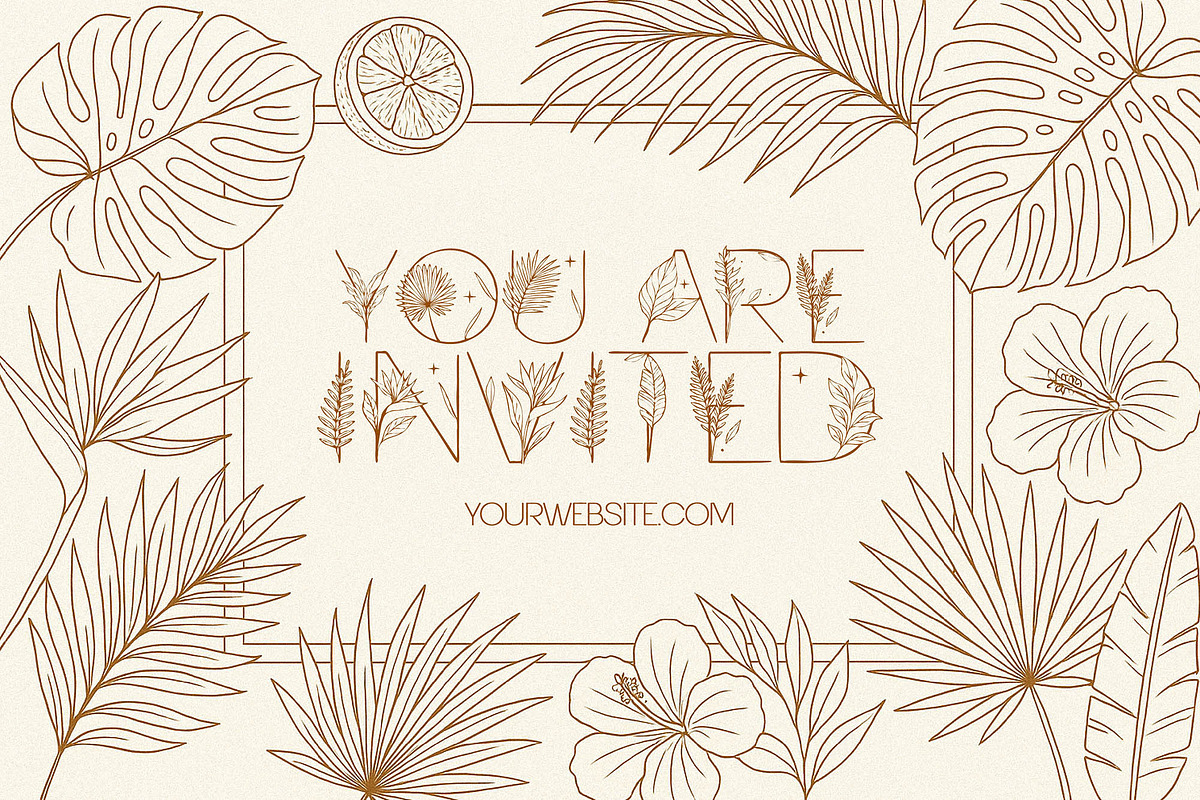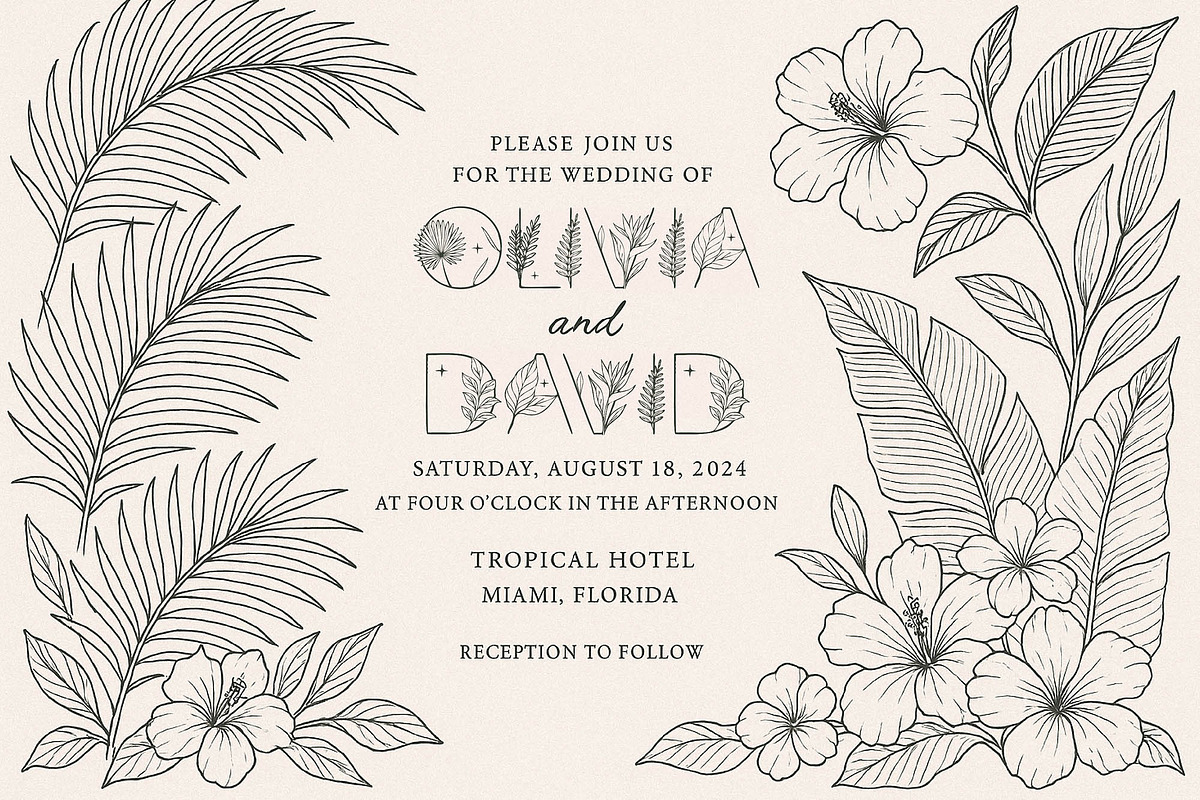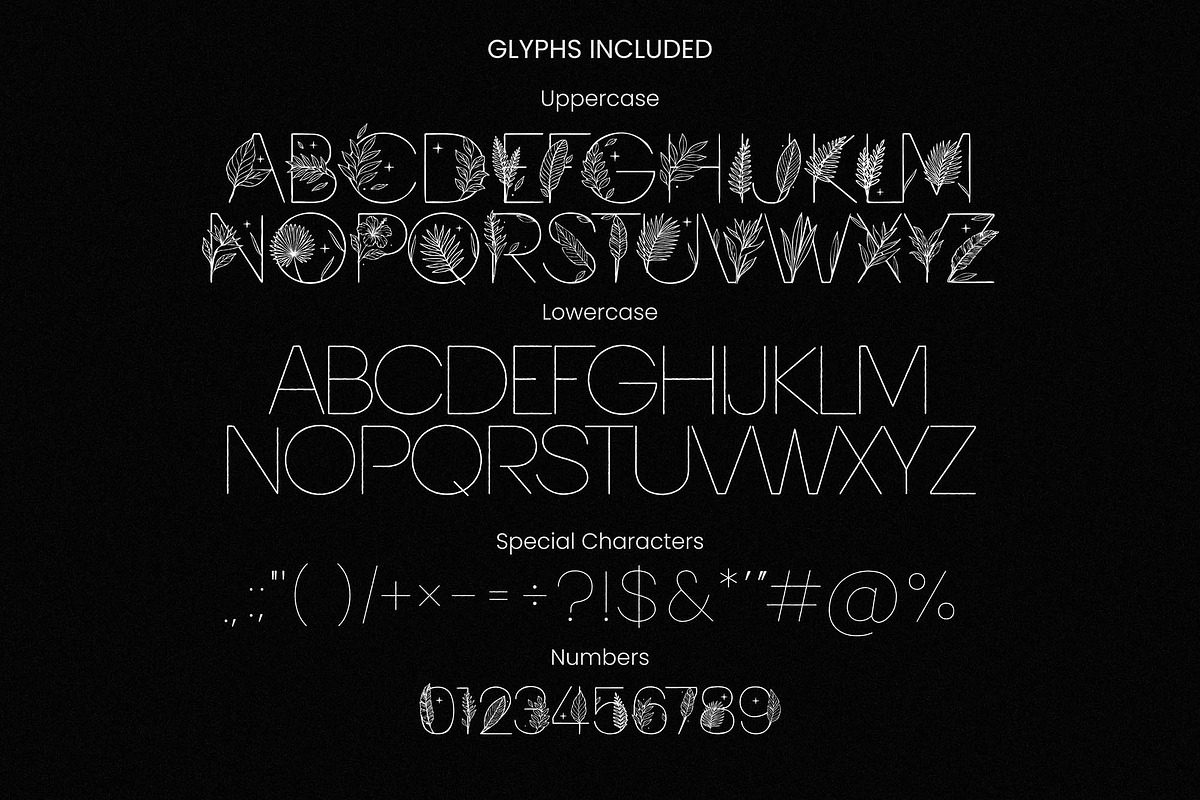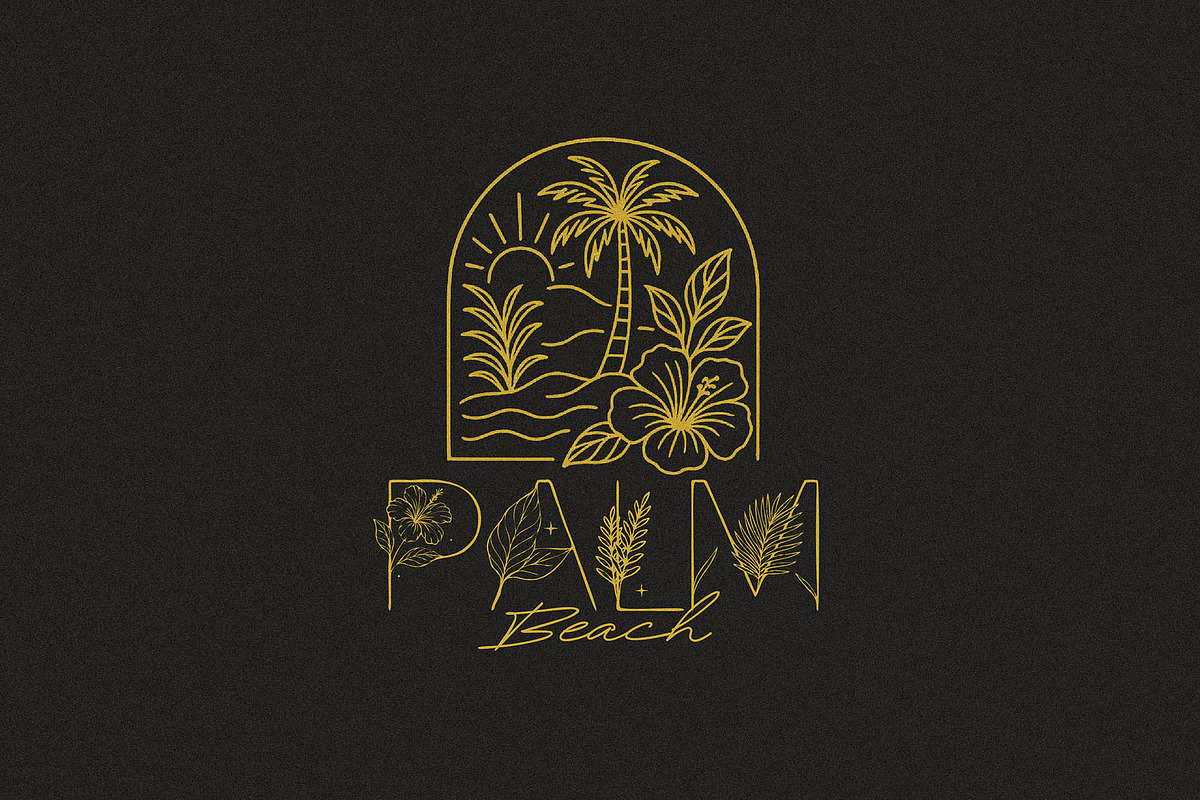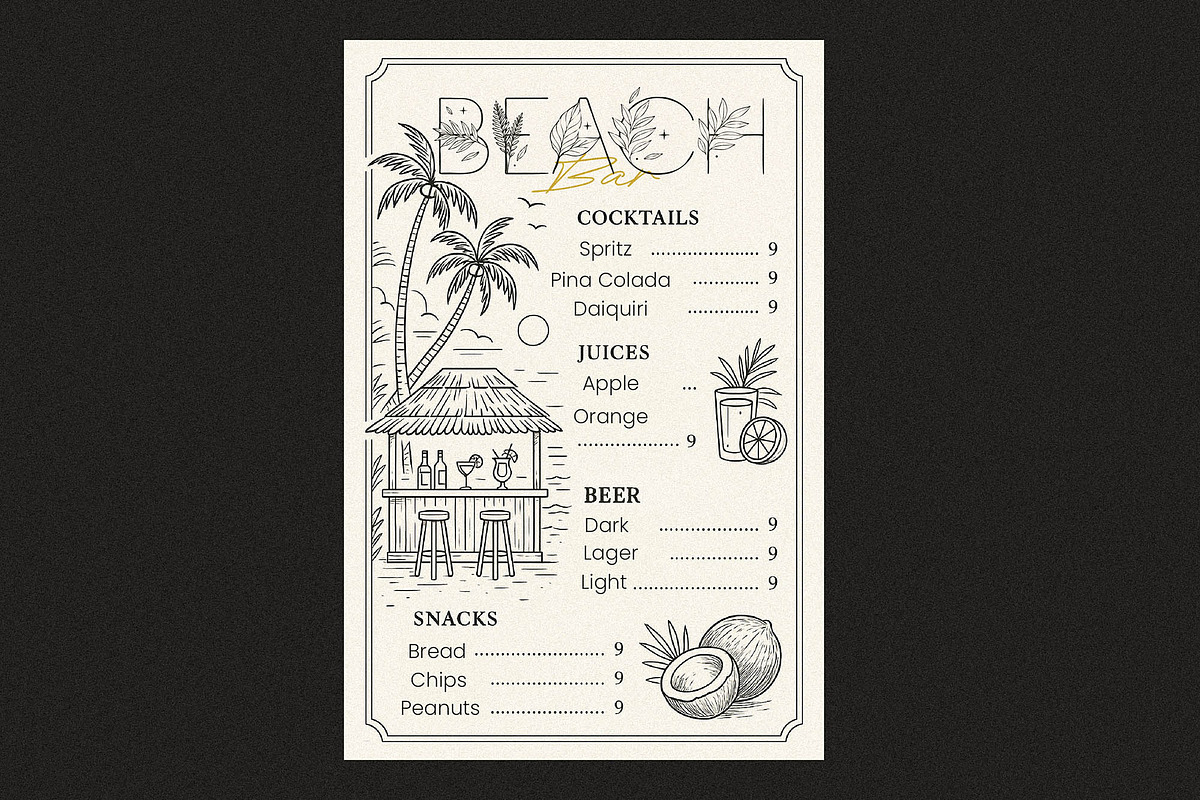
Tropic Summer - Botanical Luxury Dis
Tropic Summer is a delicate display font designed with fine botanical line art inside each letterform. Every character features tropical elements such as palm leaves, hibiscus flowers, and organic plant shapes, giving it a natural and elegant feel. The thin, monoline strokes and clean outlines make it ideal for designs that need a light, airy, and decorative style. It works especially well for large display text where the intricate details can be appreciated. The tropical theme makes it perfect for summer events, nature-inspired, and high-end branding projects.
- Luxury fashion branding
- Wedding invitations and stationery
- Boutique product packaging
- Organic skincare or beauty branding
- Tropical resort and travel advertising
- Restaurant or café menus with a nature theme